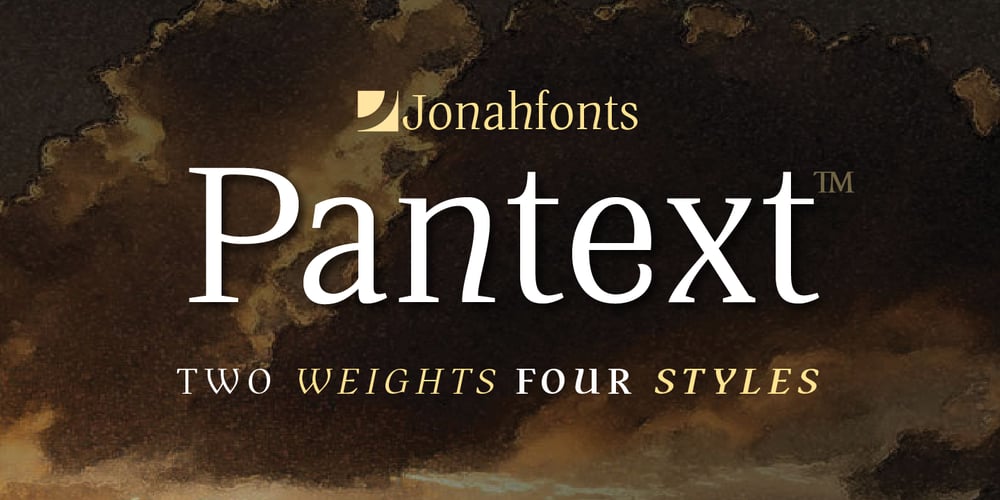
Pantext
Pantext font
Pantext Font Family was designed by John Nahmias and published by Jonahfonts. Pantext contains 4 styles and family package options. An unusual serif font with a slightly unconventional atmosfere.